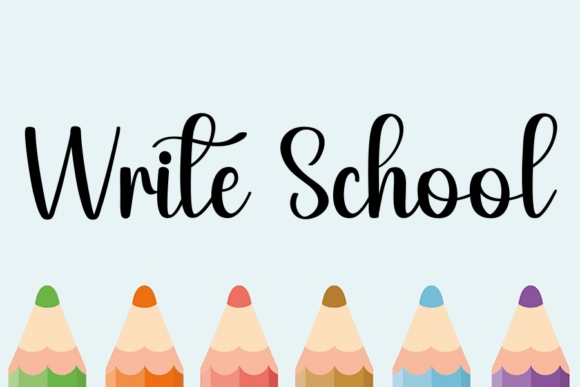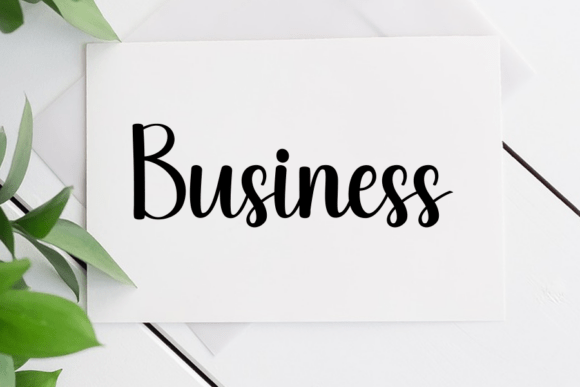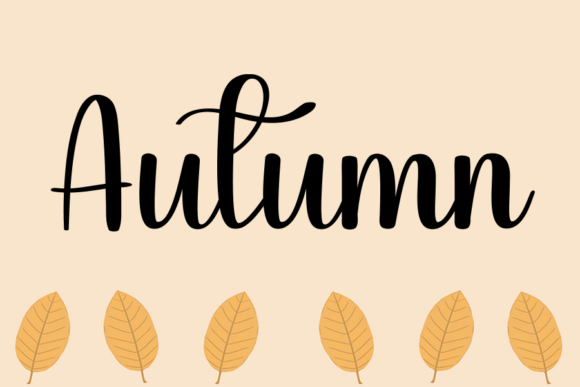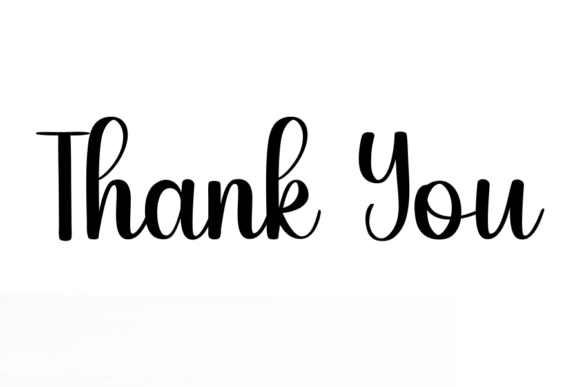
The Sweet Charm of Bakery Font: Elevate Your Designs
Imagine you’re walking into a quaint little bakery, surrounded by the heavenly aroma of freshly baked pastries and the soft glow of warm lighting. The owner greets you with a warm smile, and you can’t help but feel a sense of joy and romance. This is the exact feeling you’ll want to evoke with your designs when you use the Bakery Font.
This sweet and cursive handwritten font is the perfect addition to any design project. Whether you’re creating a logo, branding materials, or wedding invitations, Bakery Font adds a touch of elegance and whimsy that’s sure to delight. For designers, it’s a valuable asset that can help bring a sense of personality and charm to your work, making it stand out in a crowded market.
Bakery Font Key Features
- Unique Characteristics: The Bakery Font features a distinctive, hand-drawn style with intricate details and textures, giving it a unique and eye-catching appearance.
- Kerning and Ligatures: Bakery Font includes advanced kerning and ligature features, ensuring that text flows smoothly and naturally, even in complex compositions.
Bakery Font Review
Overall, I think Bakery Font is a great choice for anyone looking for a cute, modern font for their bakery, café, or food-related business. Here are some of the things that stand out to me: ✨
- The font is super cute and modern, perfect for a bakery or café.
- The font has a good range of weights and styles, making it versatile and easy to use.
- The font is highly customizable, allowing you to adjust the spacing and layout to fit your needs.
- The font is well-suited for use on packaging, signage, and digital media.
However, there are a few limitations to keep in mind: ⚠️
- The font may not be suitable for use on small screens or at very large sizes, where the characters may become pixelated.
- The font may require some additional styling to make it work well in certain contexts, such as on dark backgrounds.
Overall, I think Bakery Font is a solid choice for anyone looking for a modern, cute font for their food-related business. While it may have some limitations, the benefits far outweigh the drawbacks.
Bakery Font is ideal for:
- Bakery menus and labels
- Cake decorations and designs
- Food blog and recipe websites
- Restaurant and cafe branding
Tips for Getting the Most Out of Bakery Font
To get the most out of Bakery Font, consider the following tips:
- Use it in combination with other decorative fonts for a unique look.
- Use it to create a cohesive brand identity for your bakery or food business.
Alternatives to Bakery Font for Designers
Playfair Display is a luxurious serif font perfect for adding a touch of elegance to your designs. It features intricate details and ornate flourishes, making it ideal for titles, headings, and luxury branding. When to use: high-end fashion, luxury goods, and premium services. Compared to Bakery Font, Playfair Display has a more sophisticated and refined feel, while Bakery Font has a more rustic and vintage charm.
Lato is a modern sans-serif font that works well for clean and minimalist designs. It features a sleek and geometric design, making it perfect for digital products, apps, and websites. When to use: tech startups, digital products, and modern branding. Compared to Bakery Font, Lato has a more modern and tech-savvy feel, while Bakery Font has a more traditional and vintage vibe.